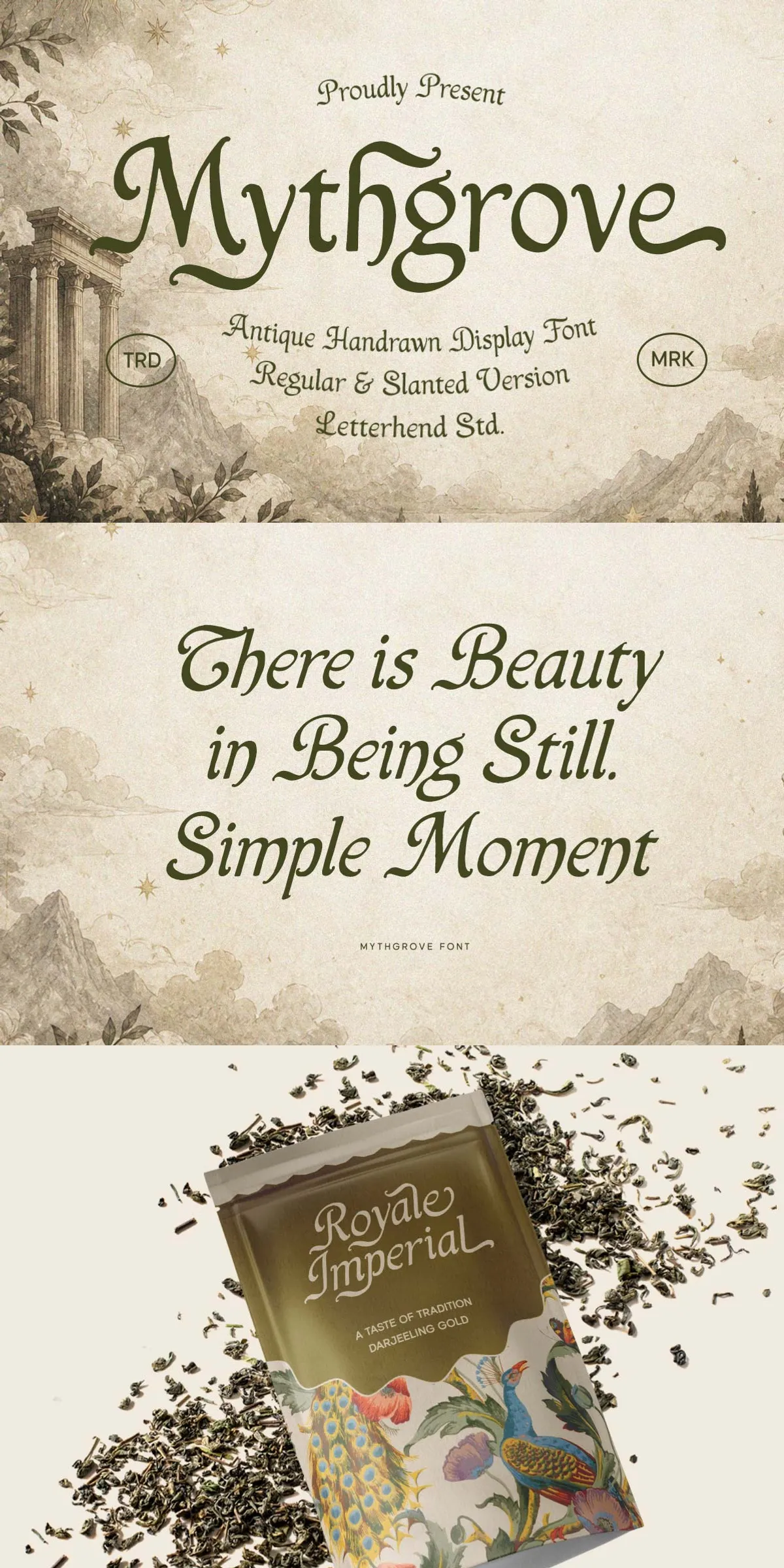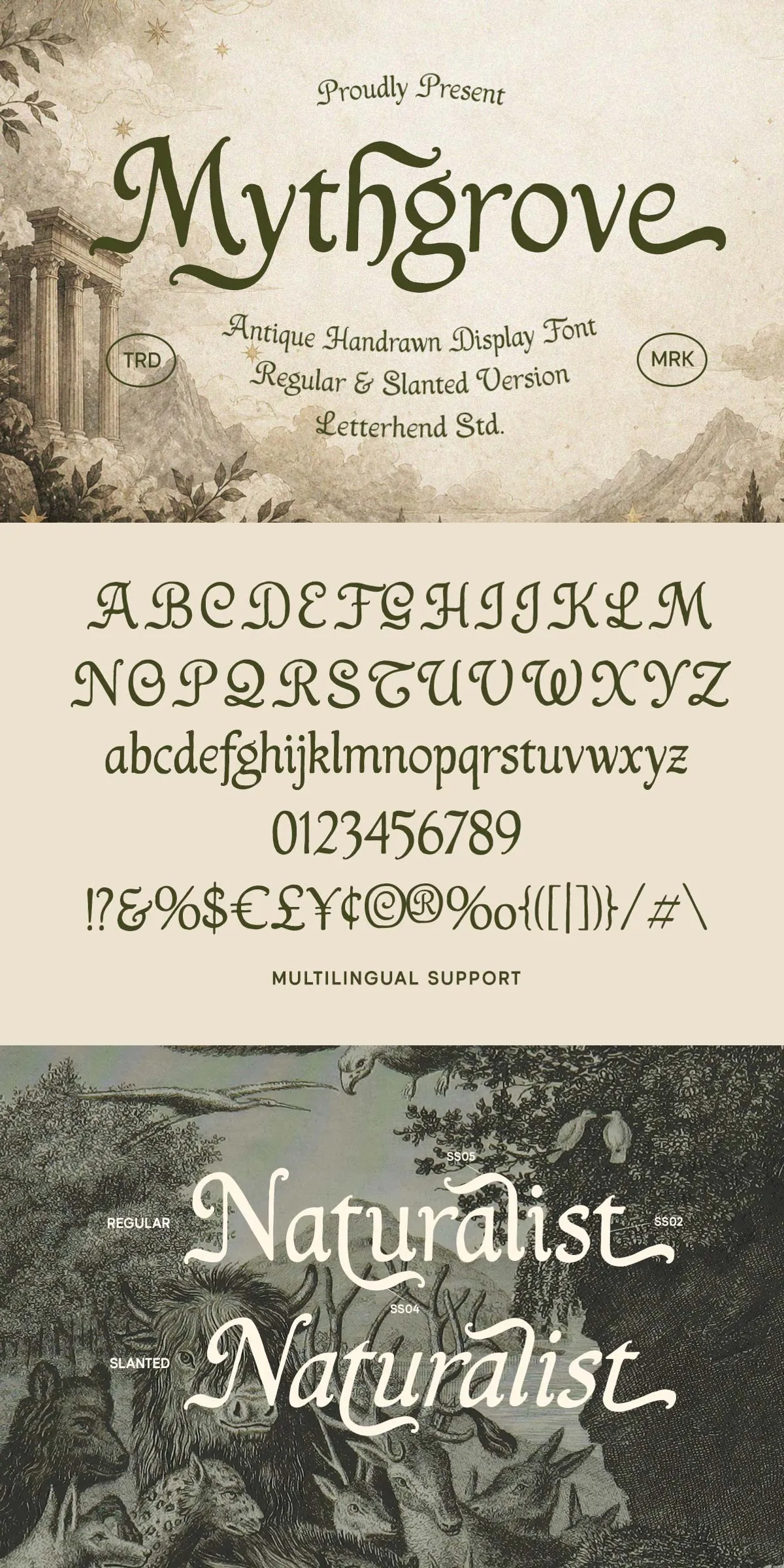
Mythgrove captures the feeling of an old story whispered through ancient forests and translates that mood into active, usable typography. The typeface combines antique hand-drawn shapes with soft fantasy curves and a subtle gothic vintage charm. Each letterform reads as intentional and expressive: the design preserves the medieval spirit while remaining playful and readable across modern applications. Use Mythgrove when you want language to feel layered with mystery, adventure, and handcrafted personality.
Detailed feature overview that empowers creative projects
Mythgrove ships with a practical feature set that designers will find immediately useful. The family includes complete uppercase and lowercase alphabets, numerals, and punctuation so you can compose full layouts without compromise. Built-in alternates and ligatures let you tune letter combinations for a handcrafted look. PUA-encoded glyphs provide easy access to decorative characters in apps that don’t expose full OpenType panels. Multilingual support expands compatibility across Latin-based languages, and the files arrive in standard formats for desktop and web deployment.
Alternates and ligatures provide handcrafted letter connections
Activate alternates to replace standard glyphs with stylistic variants that evoke hand-drawn calligraphy. Use ligatures to create seamless letter joins and avoid awkward collisions in tight wordmarks. These features help you craft logotypes, chapter headings, and poster headlines that feel bespoke. In OpenType-aware applications such as Adobe Creative Cloud and Affinity Designer, enable discretionary and contextual alternates to reveal the full expressive range of the family.
Primary use cases and pairing recommendations for immediate impact
Apply Mythgrove to projects that benefit from an evocative, story-driven voice. It excels in book covers, chapter headings, fantasy branding, tabletop game packaging, title sequences, posters, and boutique product labels. For long body copy, pair Mythgrove with a neutral sans-serif to preserve readability while letting Mythgrove dominate display moments. Combine it with textured backgrounds, subtle letterpress effects, or warm paper tones to amplify its vintage aura.
Design tips for display usage and hierarchy control
Use Mythgrove boldly at larger sizes to reveal sculpted terminals and decorative details. Increase tracking slightly for tight display lines to avoid visual crowding. Reserve alternates and ornate glyphs for headlines, subheads, and initials—keep body text clean by limiting decorative alternates to occasional accents. When creating logotypes, experiment with ligatures and alternate capitals to achieve a handcrafted signature effect.